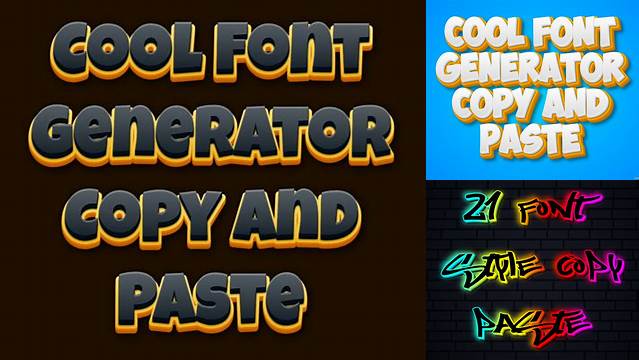
Copy & Paste Urban Fonts: The Ultimate Style Guide
Hey guys! Ever stumbled upon some seriously cool text online and wondered how to snag that same urban vibe for your own projects? You're not alone! Urban fonts are super popular right now, adding a touch of edgy style to everything from social media posts to graphic designs. But let's face it, finding and using these fonts can sometimes feel like navigating a digital maze. That's why I've put together this guide – to show you how to easily copy and paste those awesome urban fonts and inject some serious personality into your text.
What are Urban Fonts?
First, let’s dive into what exactly defines urban fonts. Think of graffiti art, street signs, and the bold lettering you see splashed across cityscapes. Urban fonts often mimic these styles, featuring elements like: bold strokes, distressed textures, and unconventional letterforms. They're the perfect choice when you want to convey a sense of grit, energy, and modernity. These fonts are really versatile; you'll find them everywhere from edgy posters and album covers to trendy website headers and Instagram stories. The appeal lies in their ability to make a statement. They're not your typical, run-of-the-mill fonts; they're designed to grab attention and leave a lasting impression. Whether you're aiming for a raw, underground aesthetic or a more polished, urban chic look, there's an urban font out there to match your vision. The key is to understand the nuances of different urban styles – some are rough and rugged, while others are sleek and sophisticated. By exploring the wide range of options available, you can choose a font that perfectly embodies the message and mood you want to convey. For instance, a bold, stencil-style font might be ideal for a music event poster, while a more streamlined, sans-serif urban font could work wonders for a tech startup's website. So, embrace the diversity of urban fonts and let your creativity run wild! Remember, the right font can transform your text from ordinary to extraordinary, adding that essential urban flair that sets your work apart. Don’t be afraid to experiment with different combinations and styles to discover what truly resonates with your project's unique identity. After all, urban design is all about pushing boundaries and expressing yourself, and your font choice should reflect that spirit.
Finding Cool Urban Fonts
Okay, so you're ready to find some killer urban fonts. But where do you even start? The internet is overflowing with options, but not all fonts are created equal. Plus, you need to make sure you're using fonts legally, especially for commercial projects. Let’s break down some of the best places to discover your new favorite font. There are numerous online font foundries and marketplaces that specialize in high-quality typography. Websites like DaFont, FontSpace, and Google Fonts offer a vast selection of free urban fonts, while platforms like MyFonts, Adobe Fonts, and Creative Market provide premium options with more extensive licensing rights. When browsing these sites, use keywords like "urban," "street," "graffiti," "grunge," or "modern" to narrow your search. Pay attention to the font previews and try out different font pairings to see what works best for your project. Remember, the perfect font should not only look visually appealing but also be legible and appropriate for its intended use. Another fantastic way to discover unique urban fonts is to explore the portfolios of independent type designers. Many talented designers showcase their work on platforms like Behance and Dribbble. Following these designers can inspire you and give you access to fonts you might not find anywhere else. Additionally, don't underestimate the power of social media. Platforms like Instagram and Pinterest are treasure troves of visual inspiration. Search for hashtags like #urbanfonts, #streetfonts, or #typography to uncover stunning examples of font usage and discover new fonts. And of course, networking with fellow designers can provide valuable insights and recommendations. They might know about hidden gems or upcoming font releases that you wouldn't otherwise encounter. Ultimately, finding the perfect urban font is a journey of exploration and experimentation. Don't be afraid to try out different styles, combine fonts, and push your creative boundaries. The more you explore, the better you'll become at recognizing fonts that resonate with your vision and capturing that authentic urban aesthetic.
Copy and Paste: The Basics
Okay, so you've found the perfect urban font. Now, how do you actually use it? The process depends on where you're using the font and whether it's already installed on your computer. Let's break down the basics of copying and pasting font styles. When it comes to copying and pasting font styles, there are two main scenarios: copying text with its formatting and copying the font itself to use in your designs. If you want to copy text that already has a specific urban font applied, the process is straightforward. Simply select the text you want to copy, use the standard copy command (Ctrl+C or Cmd+C), and then paste it into your desired application (Ctrl+V or Cmd+V). Most applications, like word processors and email clients, will retain the formatting, including the font style. However, keep in mind that the recipient of your pasted text must also have the same font installed on their system for it to display correctly. If they don't, the text will likely revert to a default font. Now, what if you want to use that cool urban font in your own designs? In this case, you need to ensure the font is installed on your computer. If you downloaded the font from a website, you'll typically receive a .ttf or .otf file. These are font files. To install them, simply double-click the file and follow the on-screen instructions. Once the font is installed, it will be available in your design software, such as Adobe Photoshop, Illustrator, or Canva. From there, you can select the urban font from the font menu and apply it to your text. Remember, using fonts legally is crucial, especially for commercial projects. Always check the font's license before using it to ensure you comply with the terms of use. Many free fonts have restrictions on commercial use, so it's better to be safe than sorry. By understanding the basics of copying and pasting font styles, you can seamlessly incorporate those trendy urban fonts into your projects and elevate your designs with a touch of street-smart flair.
Copying Text with Urban Fonts
This is the easiest scenario. If you see text with an urban font you love online (like in a social media post or on a website), you can usually just copy and paste it directly. Select the text, press Ctrl+C (or Cmd+C on a Mac) to copy, and then press Ctrl+V (or Cmd+V) to paste it into your document or message. However, there's a catch. The font will only display correctly if the recipient also has the same font installed on their system. If they don't, the text will likely revert to a default font. This is where font embedding comes in handy (we'll talk about that later).
Copying Font Styles (Without the Font)
Sometimes, you might like the style of an urban font but not have the actual font file. In this case, you can try to copy the formatting. Many applications (like word processors and design software) have a "format painter" tool or similar feature. This lets you copy the font style (size, color, weight, etc.) from one piece of text and apply it to another. However, this won't actually copy the urban font itself; it will just apply similar formatting to a font you already have installed.
Using Online Font Generators
Okay, let's talk about a super handy tool: online font generators. These websites let you type in text and instantly see it rendered in a variety of stylish fonts, including tons of urban options. They're perfect for creating eye-catching text for social media, posters, or anything else where you want a quick visual impact. The beauty of online font generators lies in their simplicity and accessibility. You don't need to download any software or install fonts on your computer. Simply visit the website, type your text, and browse the available font styles. Many of these generators offer a wide range of urban fonts, from graffiti-inspired designs to sleek and modern typefaces. You can experiment with different styles and see how your text looks in various fonts without the hassle of installing and testing them individually. This is especially useful when you're trying to match a specific aesthetic or create a unique visual identity for your brand or project. One of the most significant advantages of using online font generators is the ease with which you can copy and paste the generated text. Most generators provide a simple copy button that allows you to copy the styled text to your clipboard. You can then paste it directly into your social media posts, design projects, or any other application that supports text input. However, it's important to note that the copied text is often rendered as an image or a series of special characters rather than actual text. This means you won't be able to edit the text directly in the application where you paste it. Instead, you'll be pasting a visual representation of the text. Despite this limitation, online font generators are incredibly useful for creating visually appealing text elements quickly and easily. They're a fantastic resource for social media marketers, graphic designers, and anyone who wants to add a touch of urban flair to their projects. Just remember to use these tools responsibly and respect any licensing restrictions associated with the fonts they offer. By leveraging the power of online font generators, you can transform your text into a captivating visual element that grabs attention and enhances your message. So, go ahead and explore the possibilities and let your creativity shine!
Key Takeaways:
- Urban fonts add a unique, edgy vibe to your designs.
- There are tons of free and premium font resources online.
- Online font generators are great for quick text effects.
- Font embedding ensures your text displays correctly everywhere.